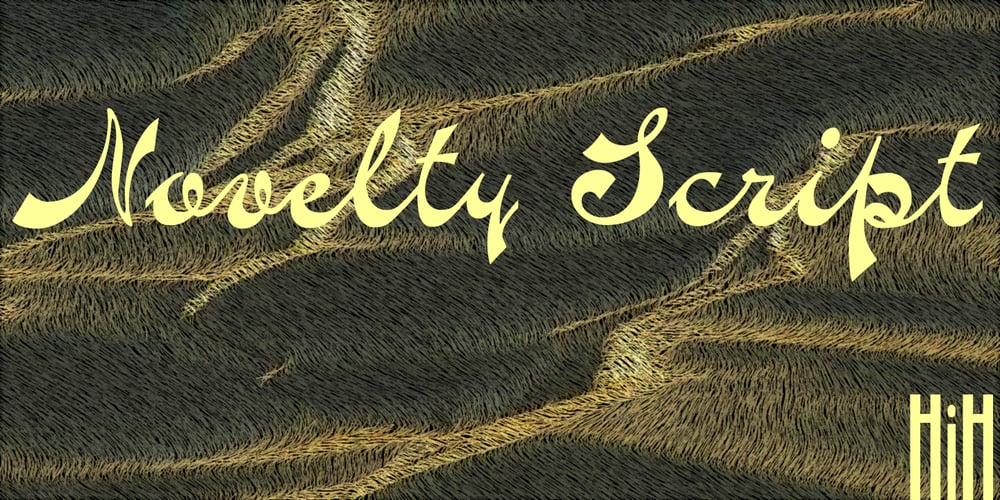
Novelty Script Font Family was designed by published by HiH. Novelty Script contains 1 styles and family package options. Novelty Script is a bold dynamic script, sharply delineated, yet fluid. Most of the lower case letters and many of the upper case letters have joins. The typeface was designed by Nicholas J. Werner and Gustave F. Schroeder and patented in March 1893. The original release was by the Central Type Foundry of St. Louis, Missouri. Although a part of ATF from 1892, the Central Type Foundry continued to operate under its own name until 1895. Novelty Script uses our new encoding, as noted in the All_customer_readme.txt. The Euro symbol has been moved to position 128 and the Zcaron/zcaron have been added at positions 142/158 respectively. Otherwise, Novelty Script has our usual idiosyncratic glyph selection, with the German ch/ck instead of braces, Western European accented letters, lower case “o” and “u” with Hungarian umlaut and our usual Hand-in-Hand symbol. But that is not all. With the takeover of the Central Type Foundry by ATF, a group of special characters appeared. All are included in this font, except the “&Co” and the “‘s”, for a total of nine in all. The “Ch” and “nd” ligatures are especially interesting because of the impact they have on the color and overall appearance of the page. Download the PDF Type Specimen for locations. This is a fun font to use. Its strength is print, where it gives a page a refreshing look. The joins sometimes have difficulty on the screen, in spite of extensive hinting. Playing around with small changes on the point size can pay dividends. Not for the faint-of-heart. Are you up to the challenge?